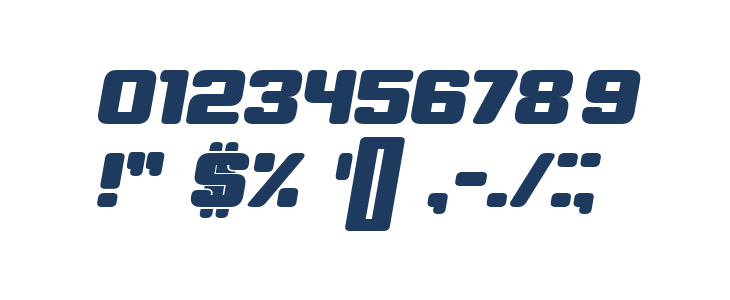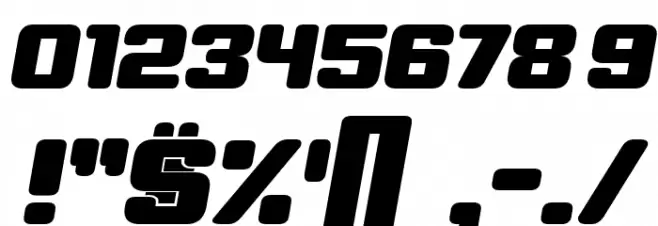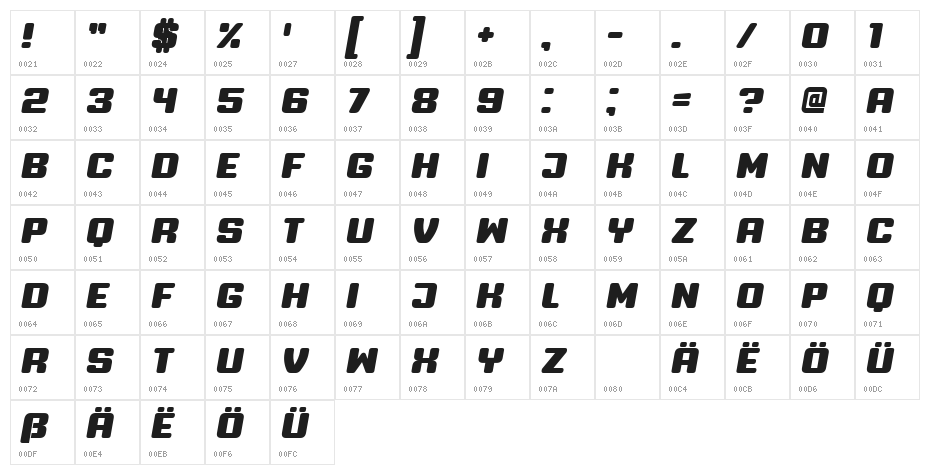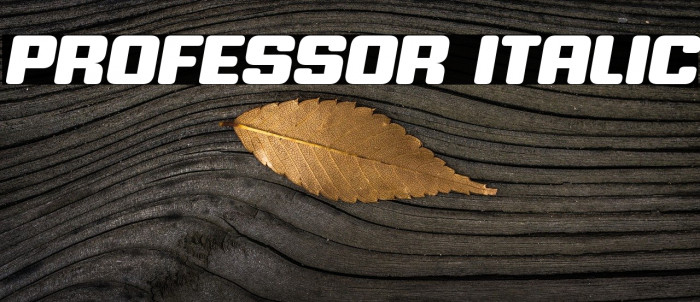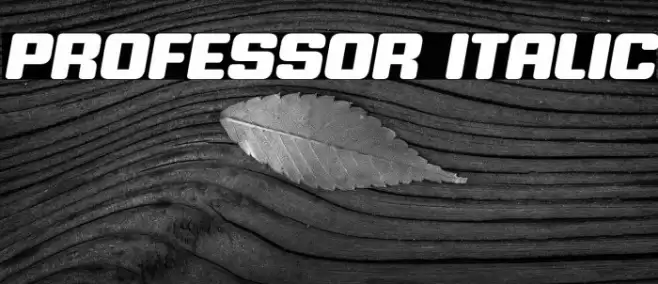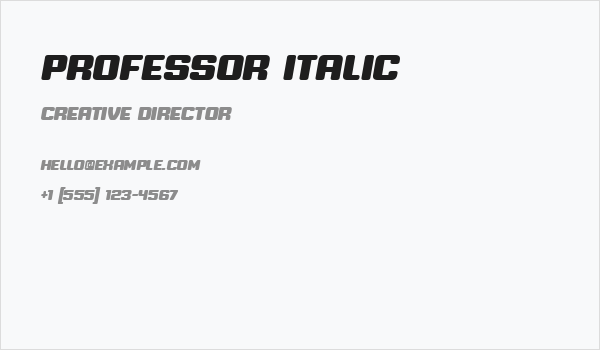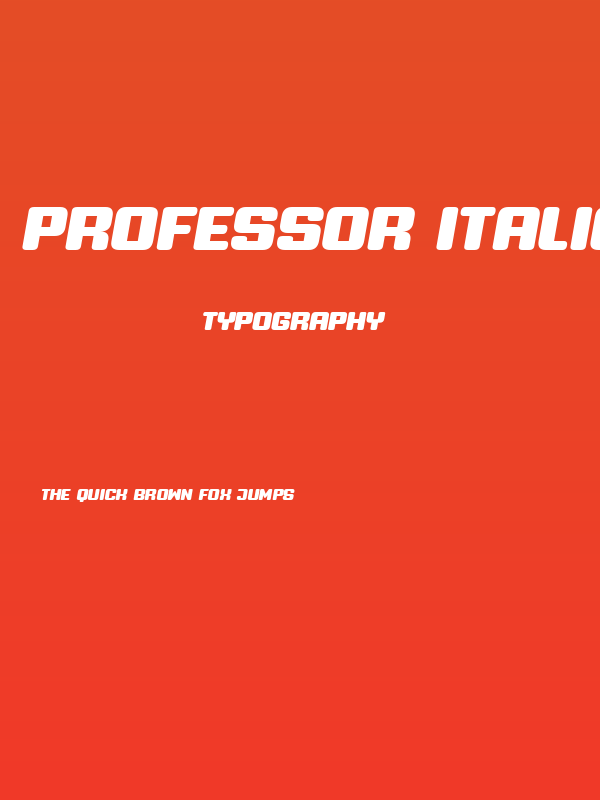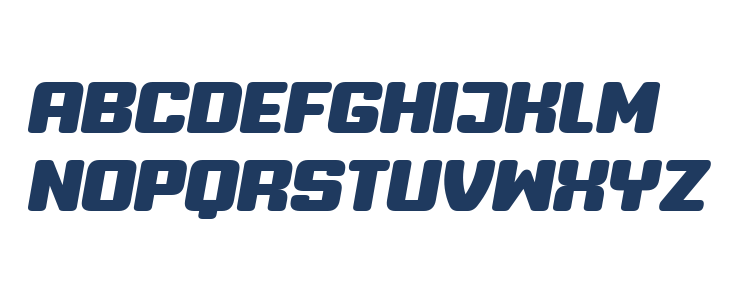
Professor Italic Font
Professor Italic Description
This font features a bold and dynamic style with a distinct italic slant, giving it a sense of motion and energy. The characters are robust and well-defined, with rounded edges that soften the overall appearance. The uppercase and lowercase letters maintain a consistent weight, ensuring readability while adding a modern flair. The numerals are equally bold, matching the style of the alphabetic characters. Special characters are included, each designed to complement the font's overall aesthetic. This font's strong presence makes it suitable for impactful designs.